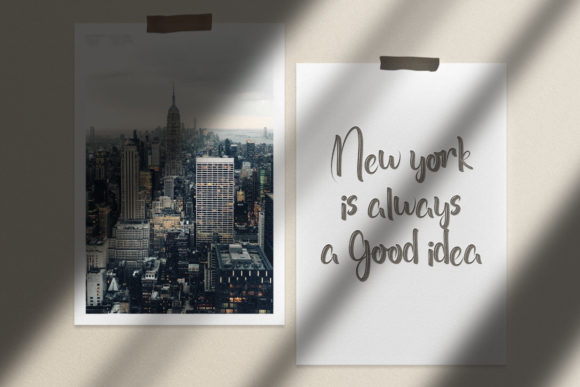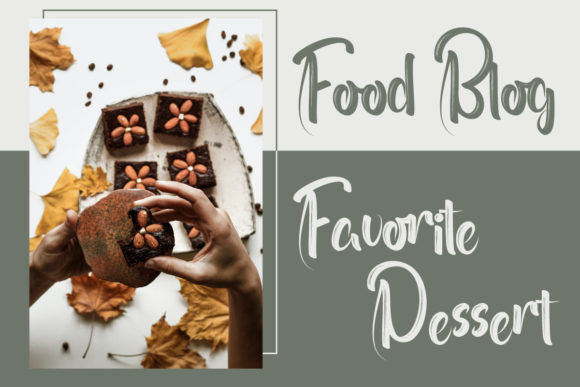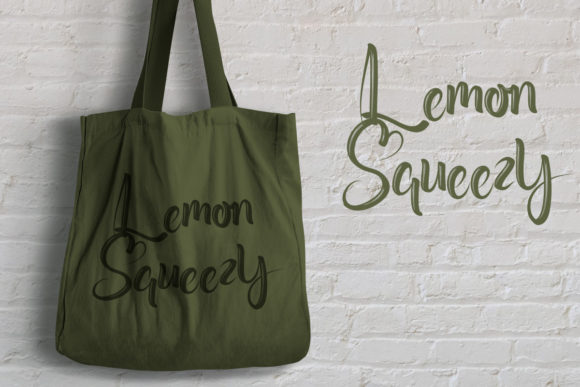
About Kramfors Font
Kramfors is a handwritten font that was inspired by some café menu letterings. It will add that extra spark to any projects you’re working on. It is perfect for branding, logos, stationery, wedding invitations, signage, flyers, video titles, etc. The style of the font is playful, classic, and casual brush style. You can put it on houseware, cosmetics, events, artists, musicians, cafés, coffees, promotions, etc.